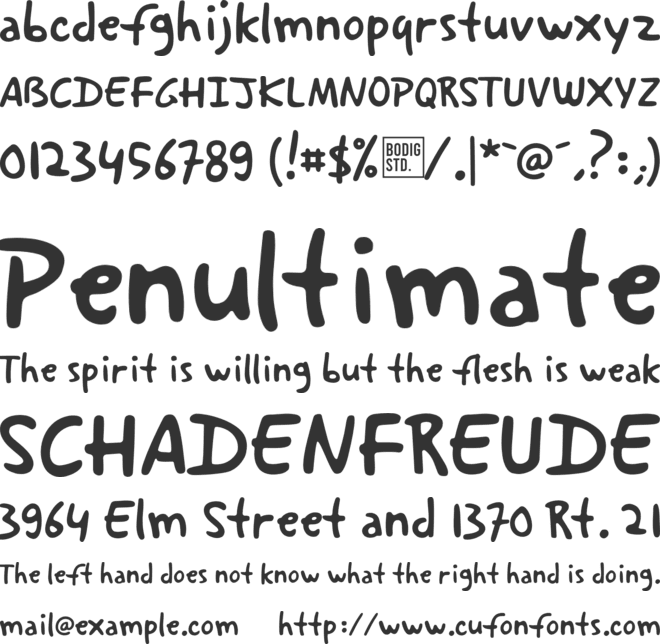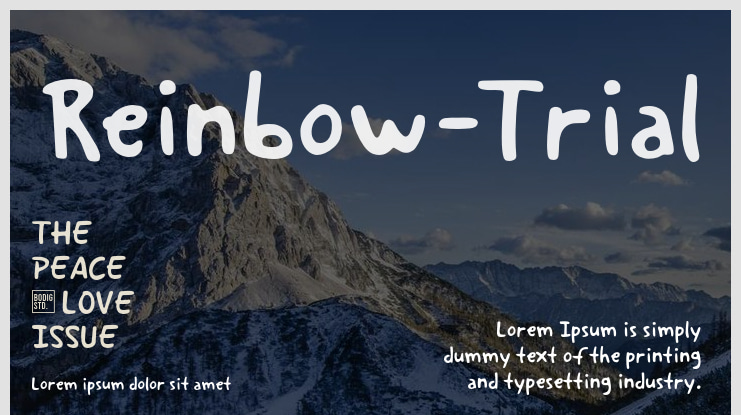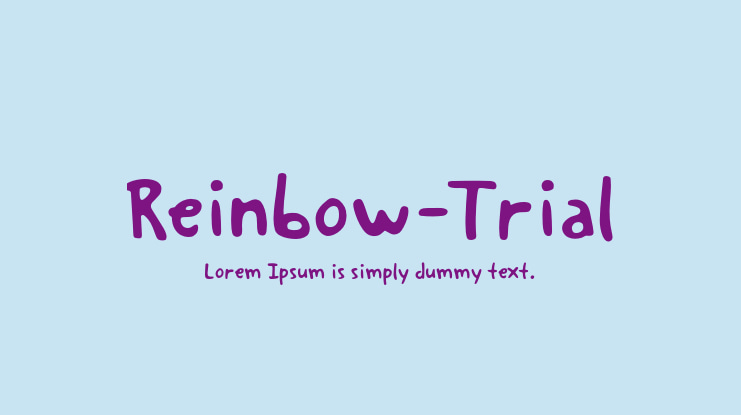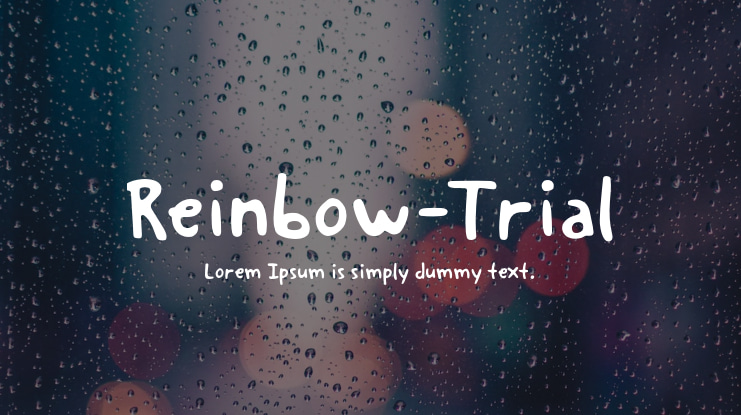
Reinbow-Trial Font
Reinbow is a playful font featuring bold, solid lines that enhance readability and conservative curves that are easy on the eyes. It is a balanced blend of playful and professional lettering, perfect for display purposes. Add this font to your creative projects and watch how they stand out!